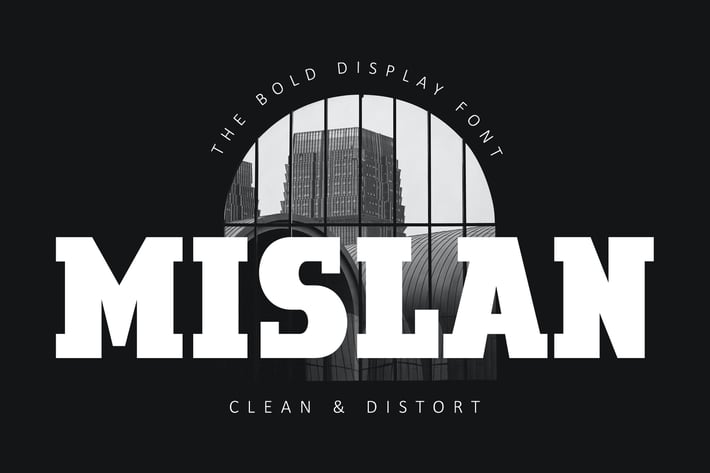
Mislan Business Advertising Font
Mislan is super bold font with 2 styles : grunge effect inside its characters and clean . Mislan is awesome font. Very perfect for many project: fashion, magazines, logo, branding, quotes, blog header, poster, advertisements, postcard, book, websites, etc.